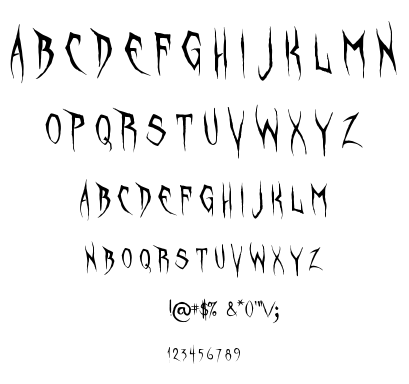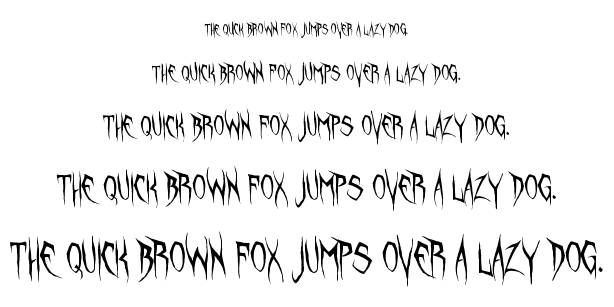
Unquiet Spirits font.
Created 2010, hand-lettered as a more controlled version of my other font Ghastly Panic.
Unquiet Spirits font.
Created 2010, hand-lettered as a more controlled version of my other font Ghastly Panic.